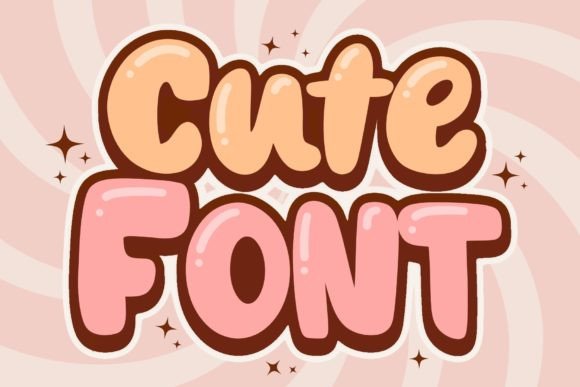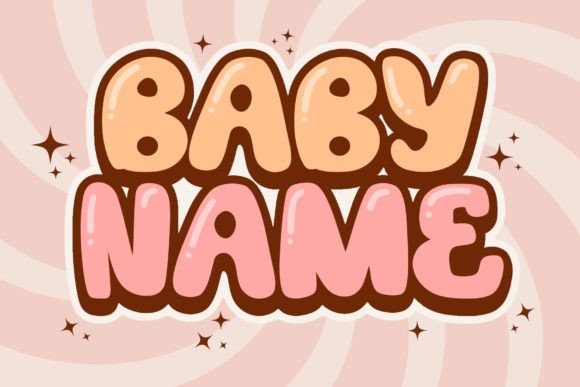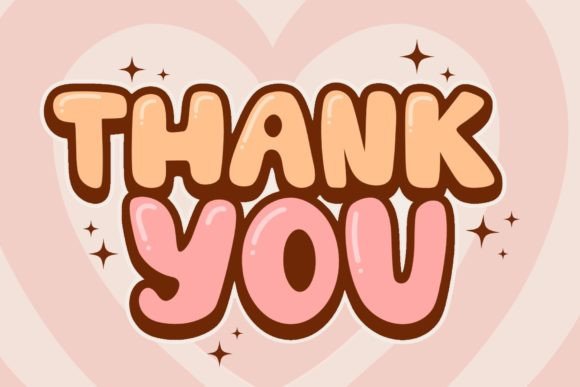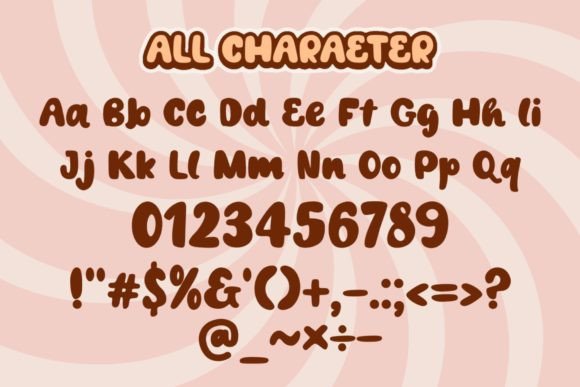
Introduction to Funny Boys Font
Introducing the Funny Boys Font, where laughter and creativity collide.
This playful and whimsical typeface is designed to add a dash of humor and charm to your designs With its quirky letterforms and delightful characters, Funny Boys Font will bring smiles to everyoneโs faces.
Key Features of Funny Boys Font
Why Choose Funny Boys Font?
Funny Boys Font offers exceptional quality and versatility, making it a valuable addition to your design toolkit. Whether you’re creating for personal projects or commercial use, Funny Boys Font delivers professional results.